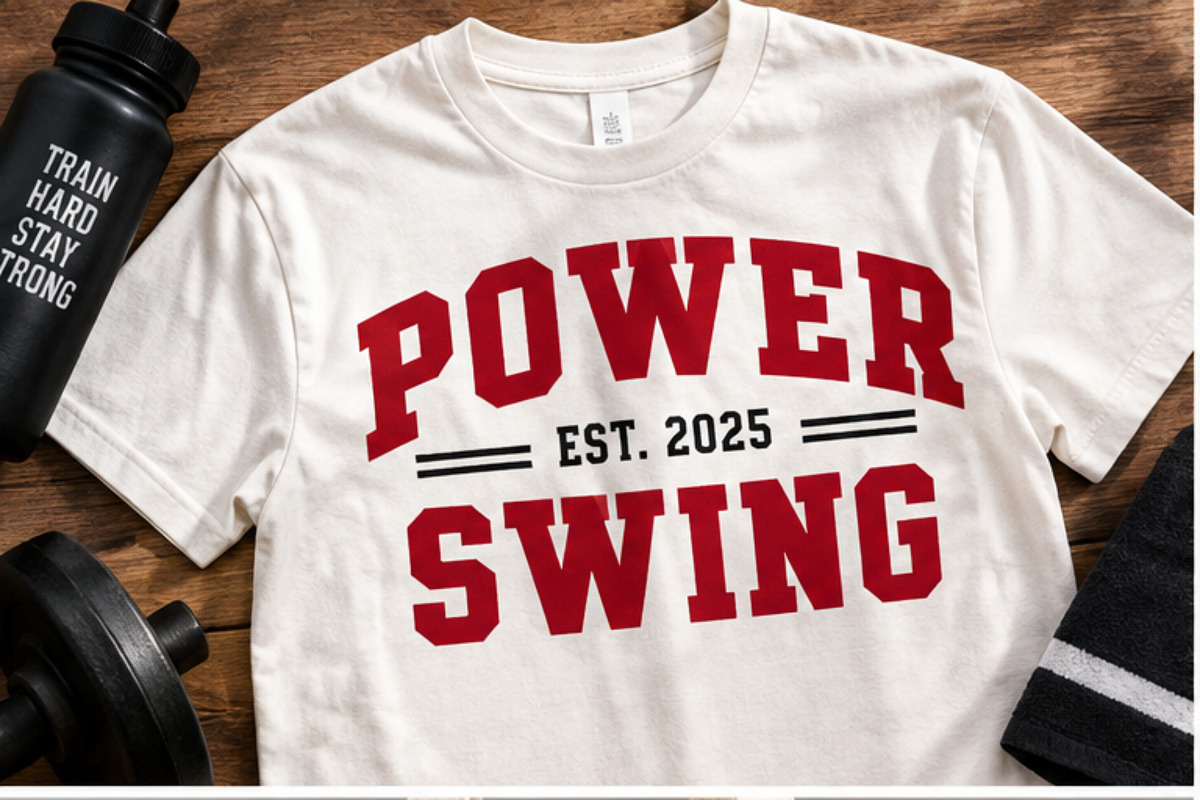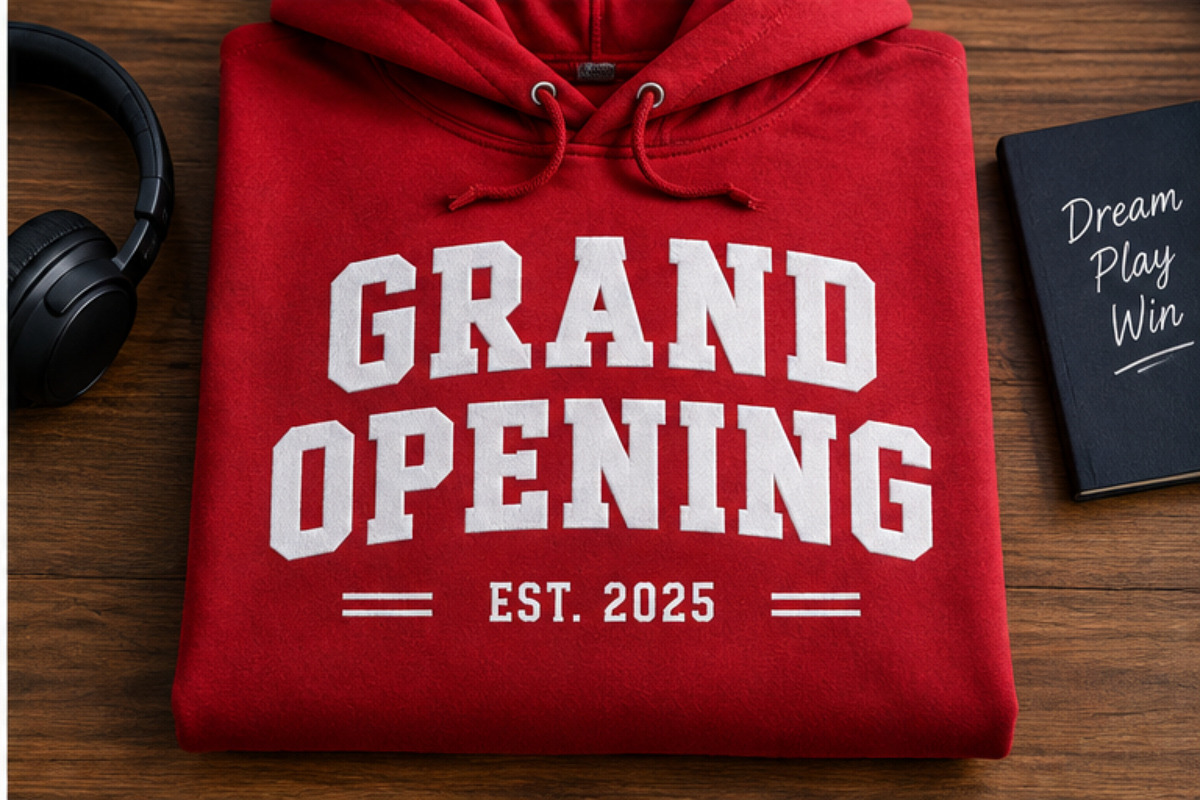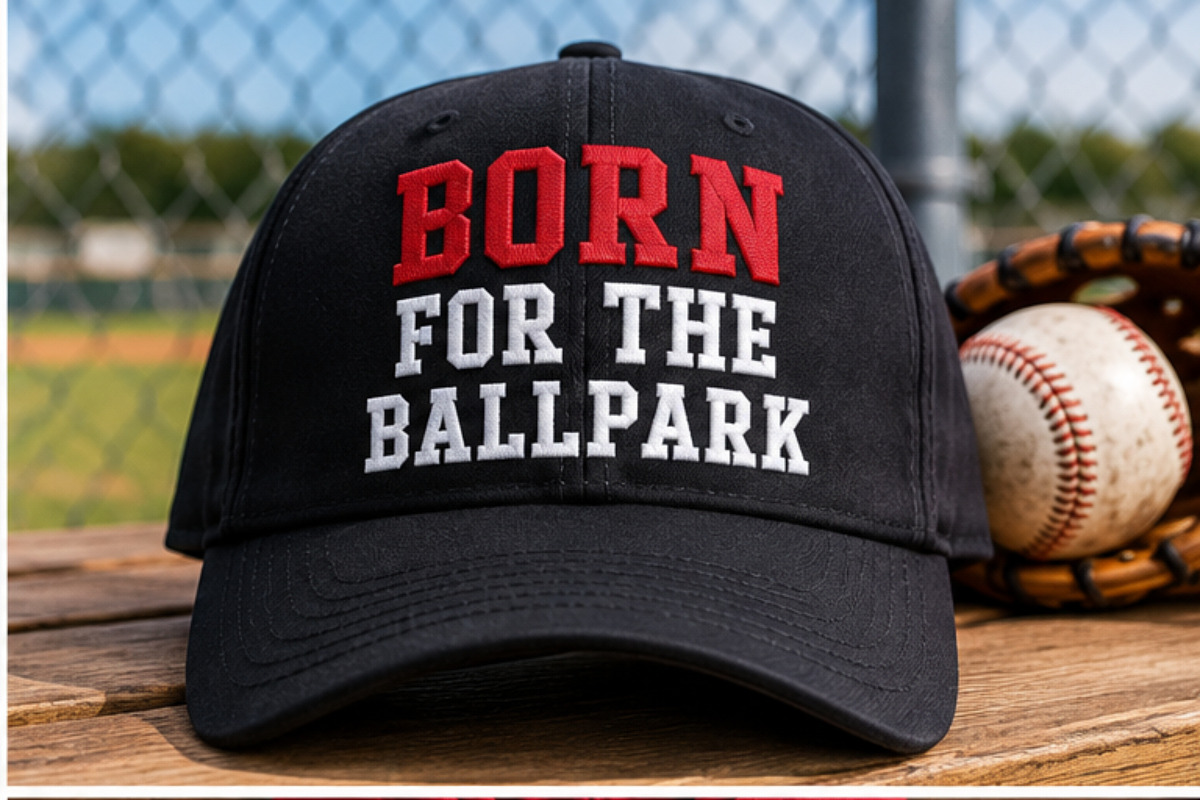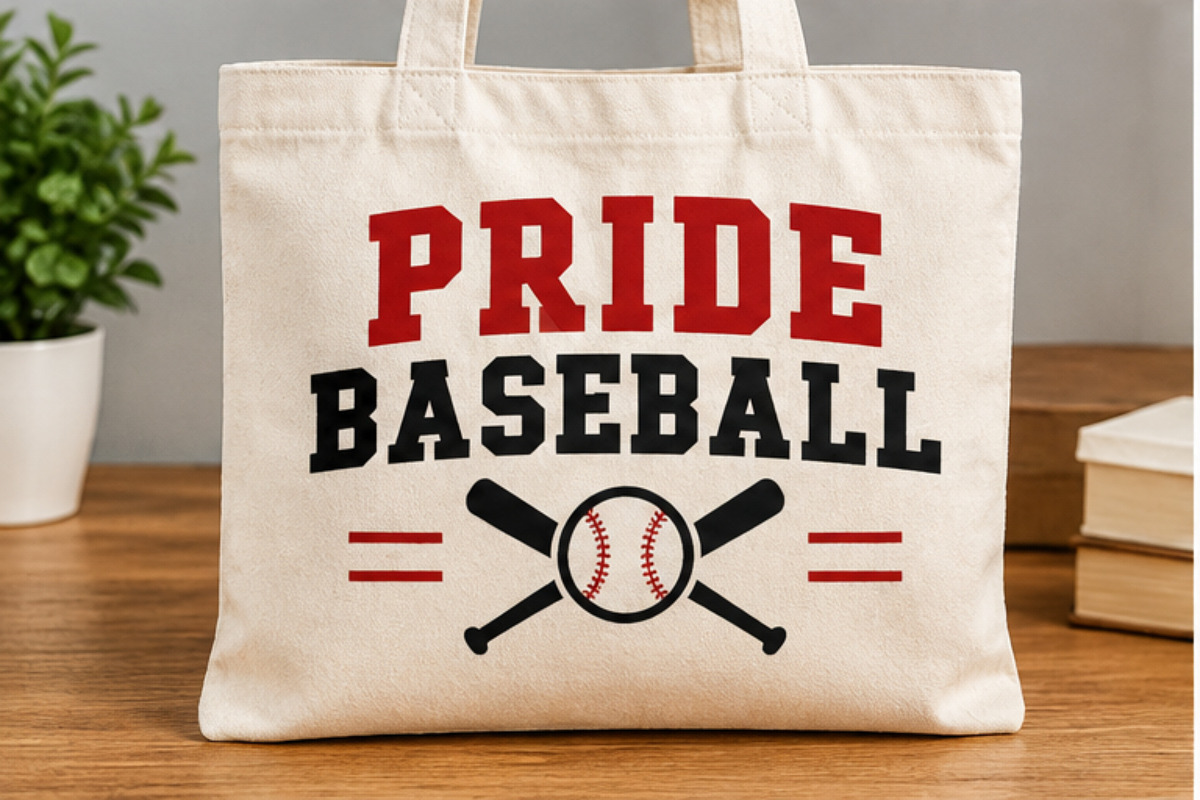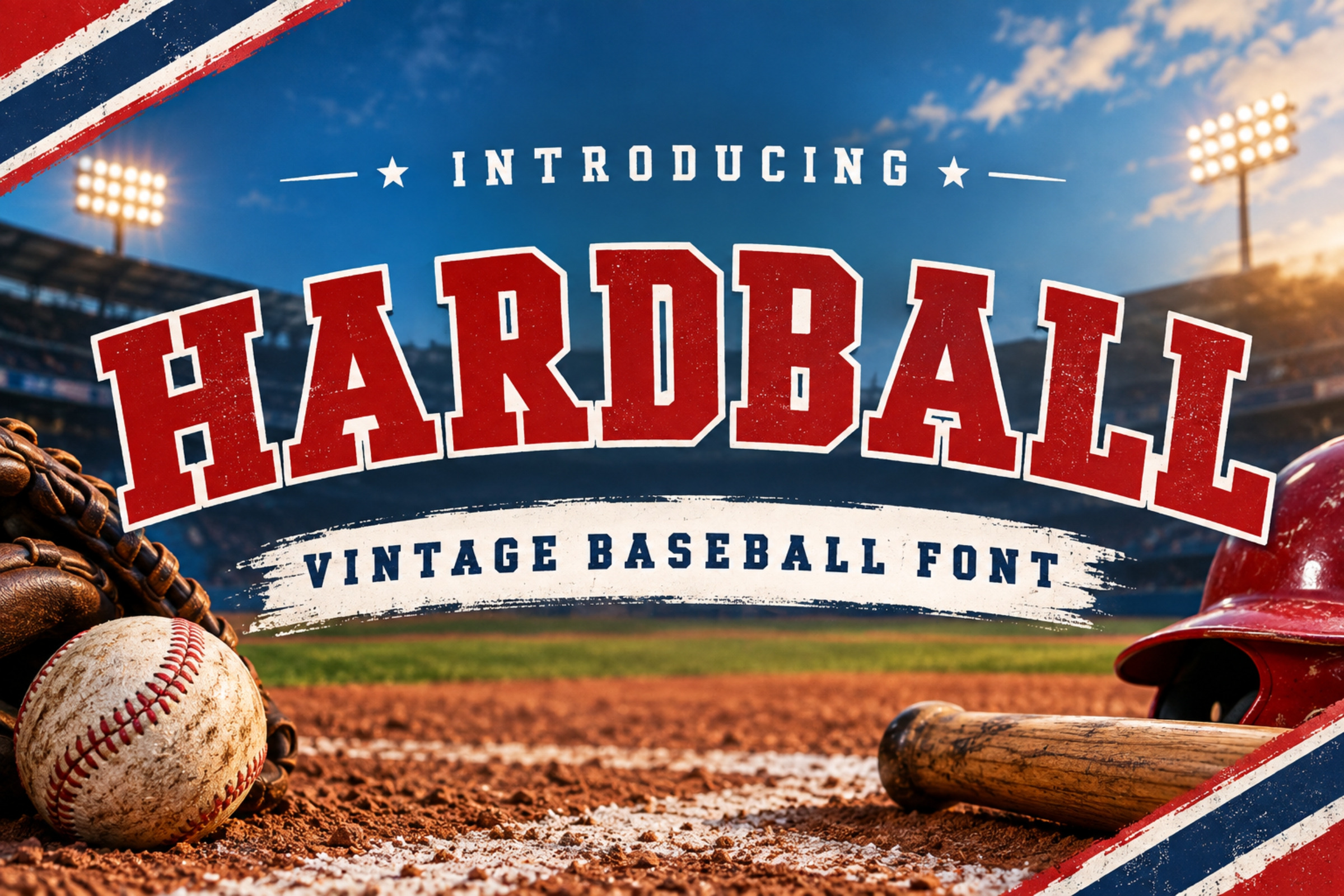
Hardball - Bold Sporty Font
Hardball is a bold vintage baseball font inspired by classic sports typography, collegiate lettering, and old-school ballpark aesthetics. Its strong slab serif shapes and rugged character make it perfect for sports branding, baseball jerseys, team logos, merchandise, posters, apparel, and retro-inspired designs.
Hardball works beautifully for both digital and print projects, bringing a powerful athletic and vintage feel to every design.
Ideal For:
– Baseball & sports designs – Team logos and branding – Jerseys and sportswear – T-shirts and hoodies – Caps and hats – Posters and flyers – Baseball merchandise – School & collegiate projects – Vintage badges and emblems – Social media graphics